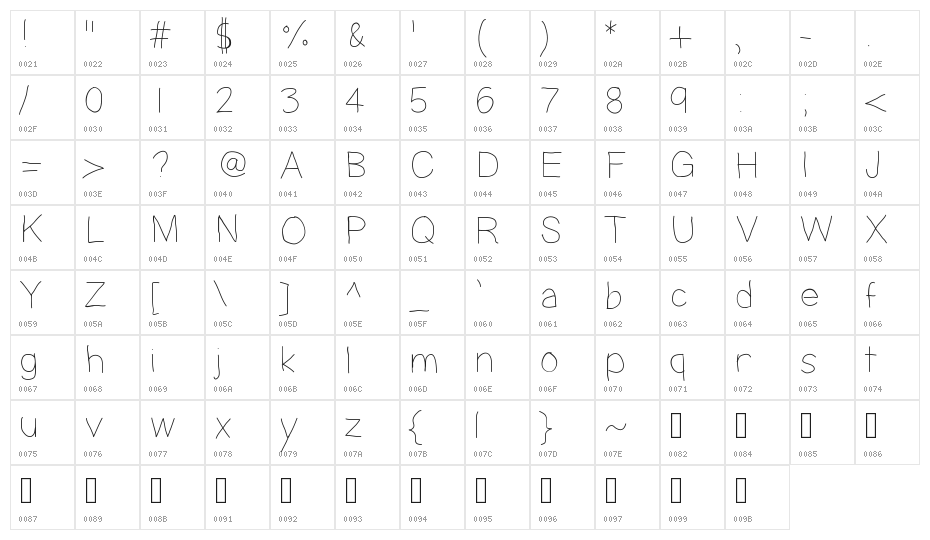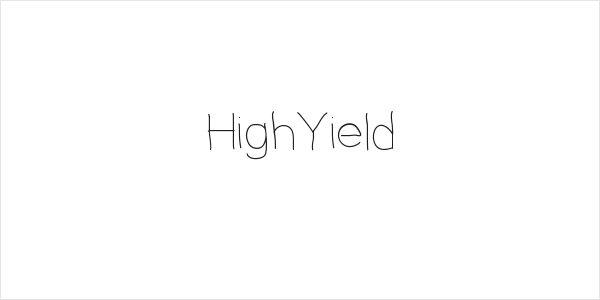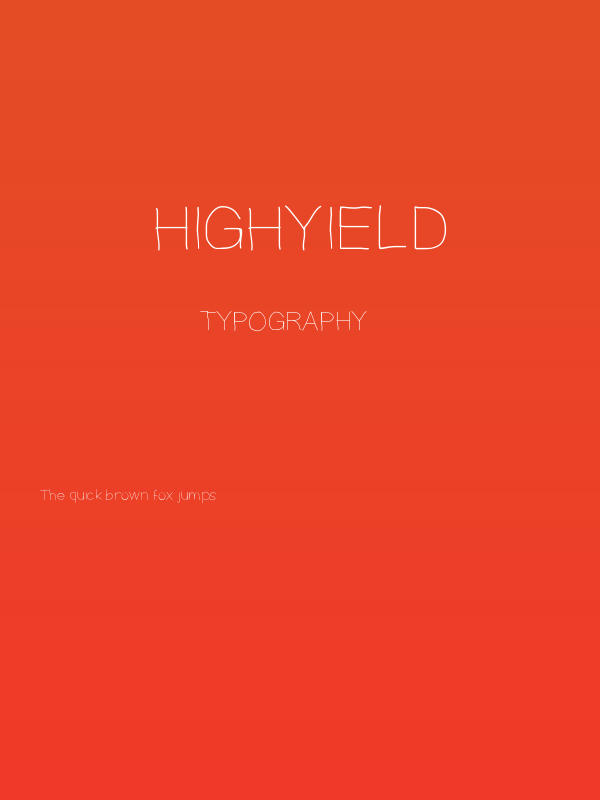
HighYield Font
HighYield Description
This font features a playful, handwritten style with a casual and informal appearance. The letters are slightly irregular, giving it a whimsical and approachable feel. The strokes are thin and consistent, with a slight wobble that adds character. Uppercase and lowercase letters maintain a uniform height, while numbers and special characters follow the same playful design. This font is ideal for projects that require a personal touch, such as greeting cards, invitations, or children's books. Its unique style makes it stand out while remaining legible.
Matt Bruinooge
| Overall Style | Casual, Whimsical |
| Use Case | Headlines, Informal text, Creative projects |
| Proposed Projects | Greeting cards, invitations, children's books, personal notes, and casual branding. |